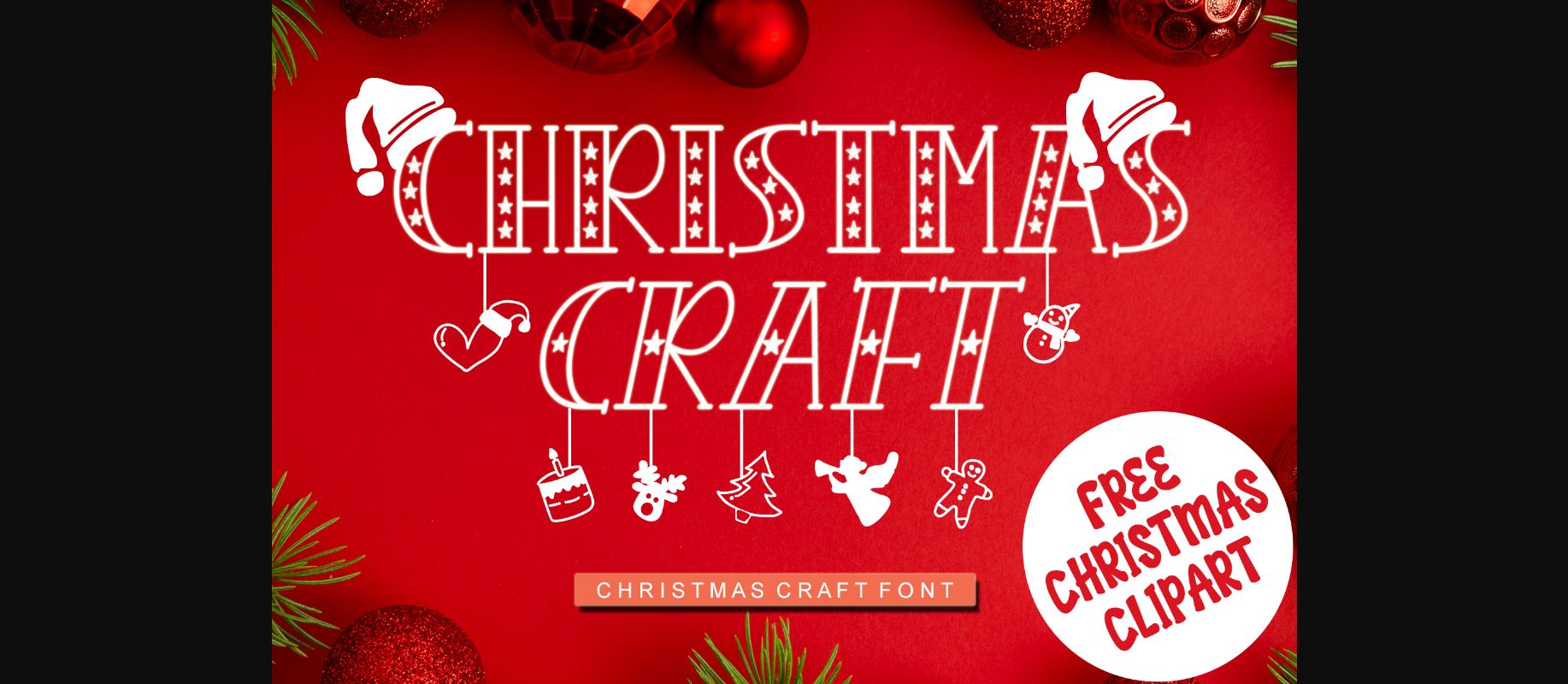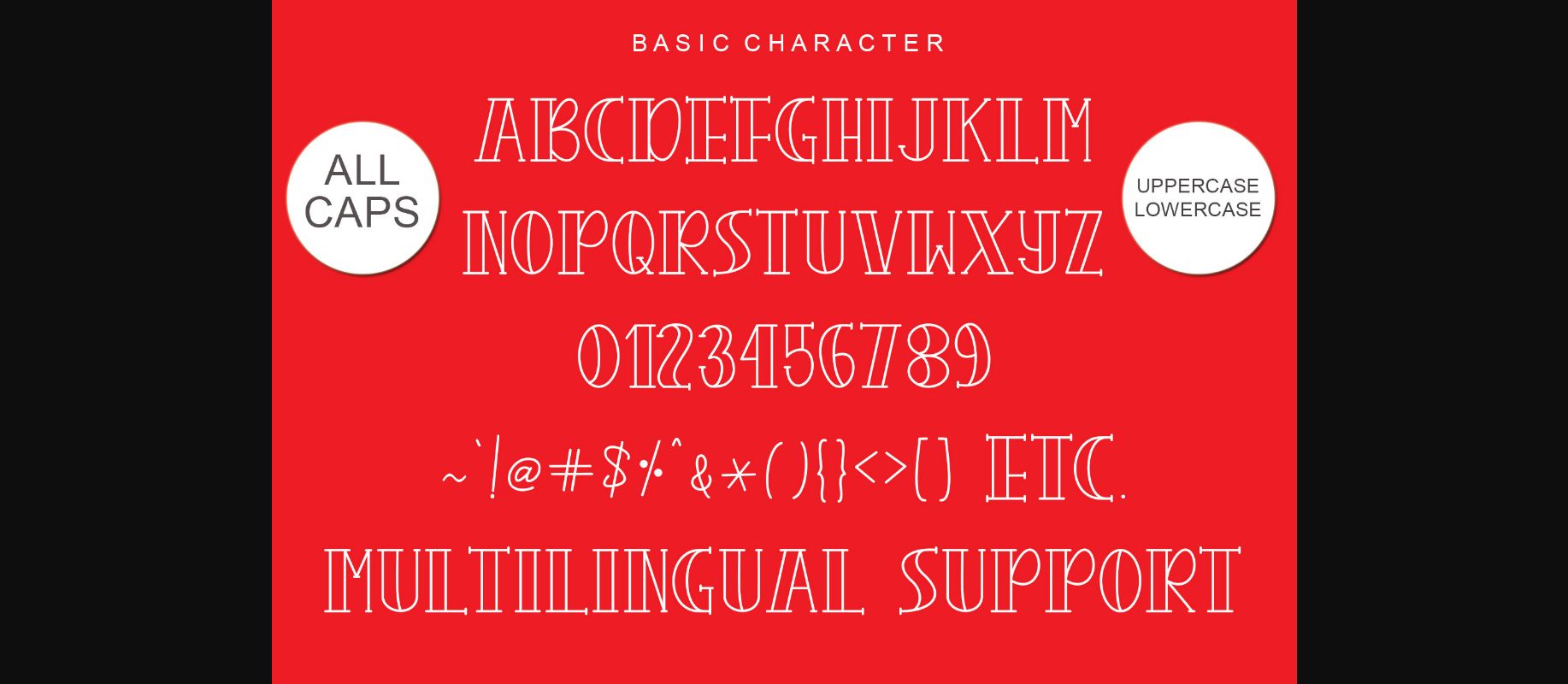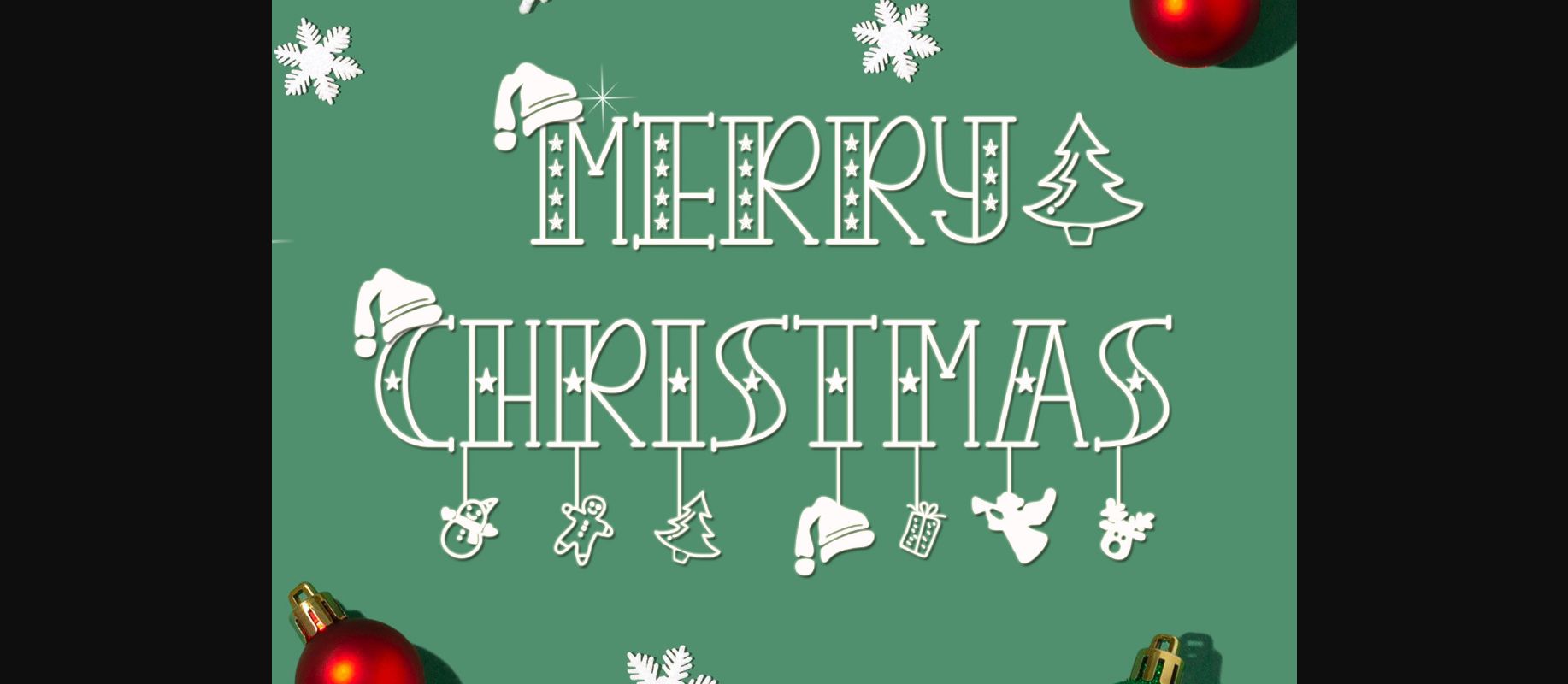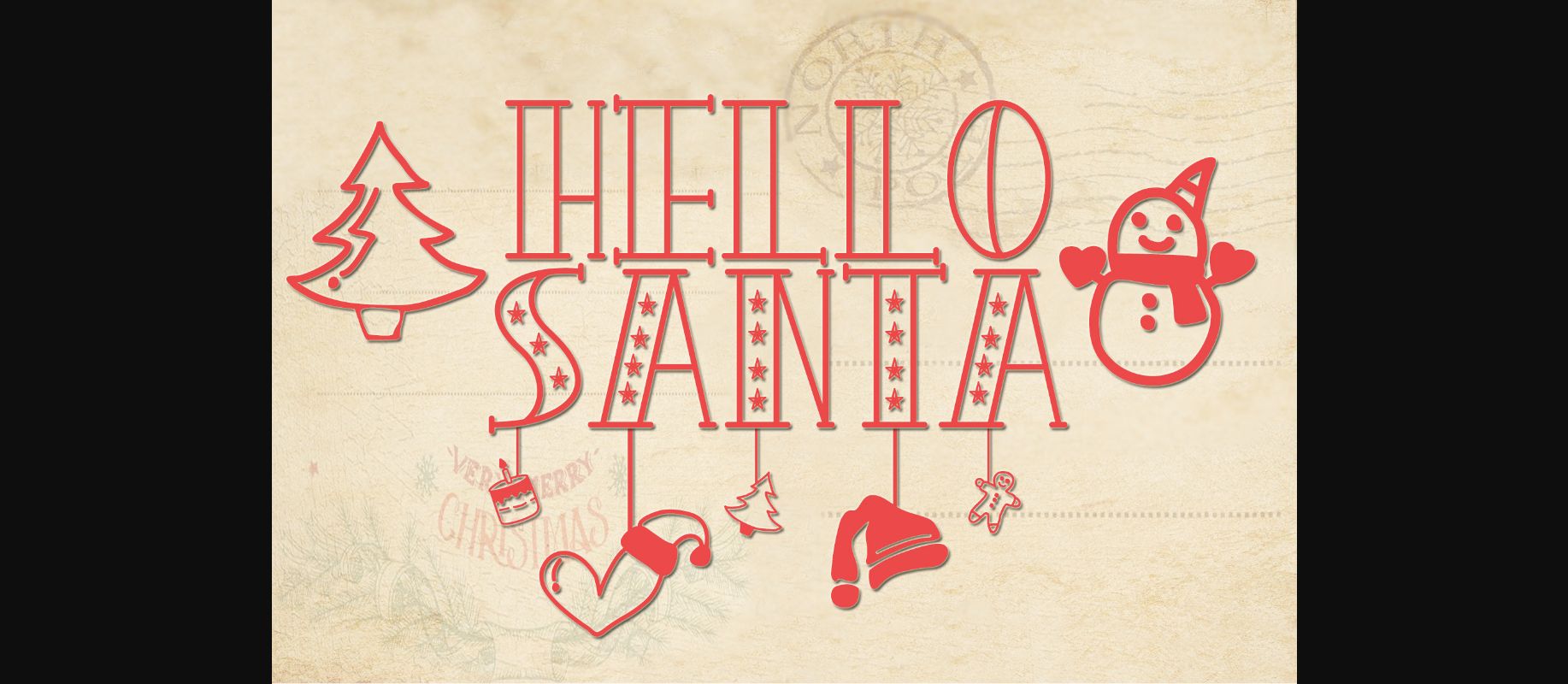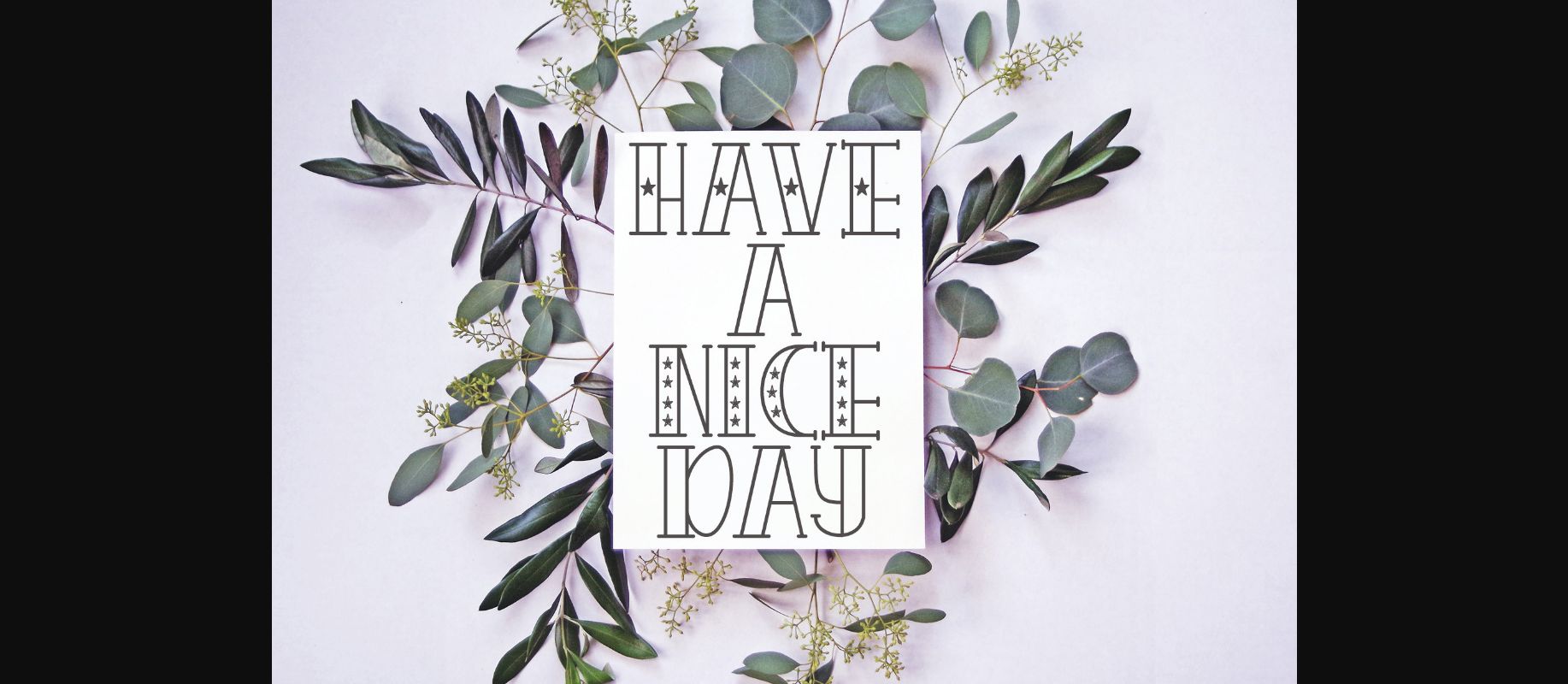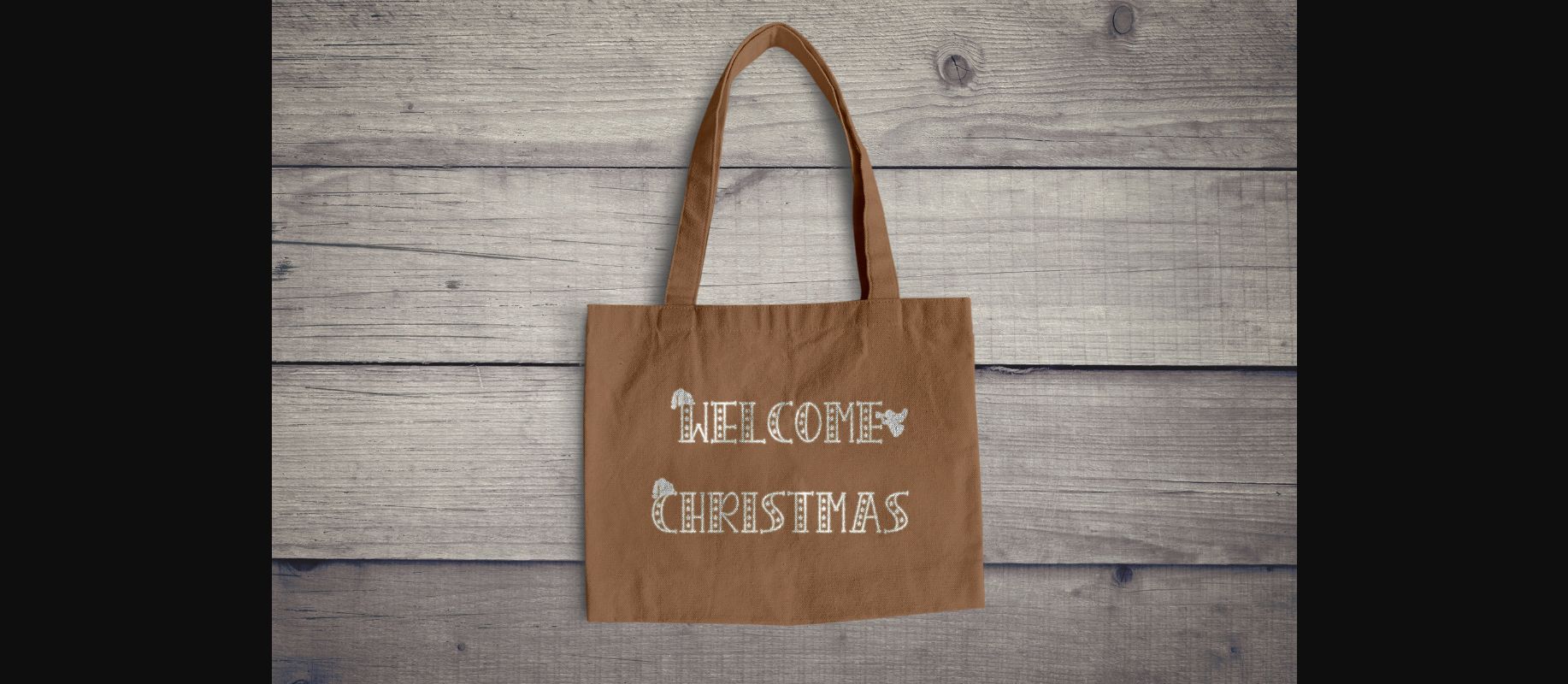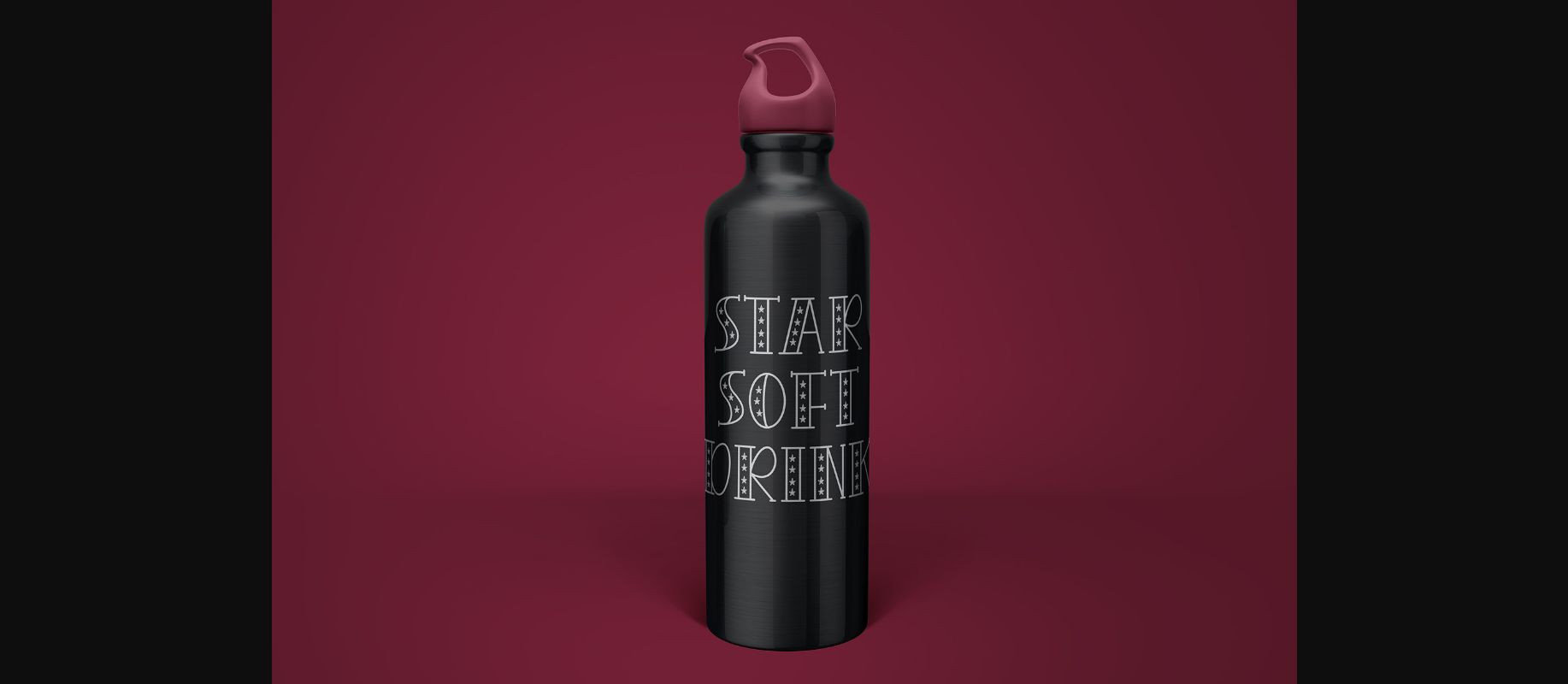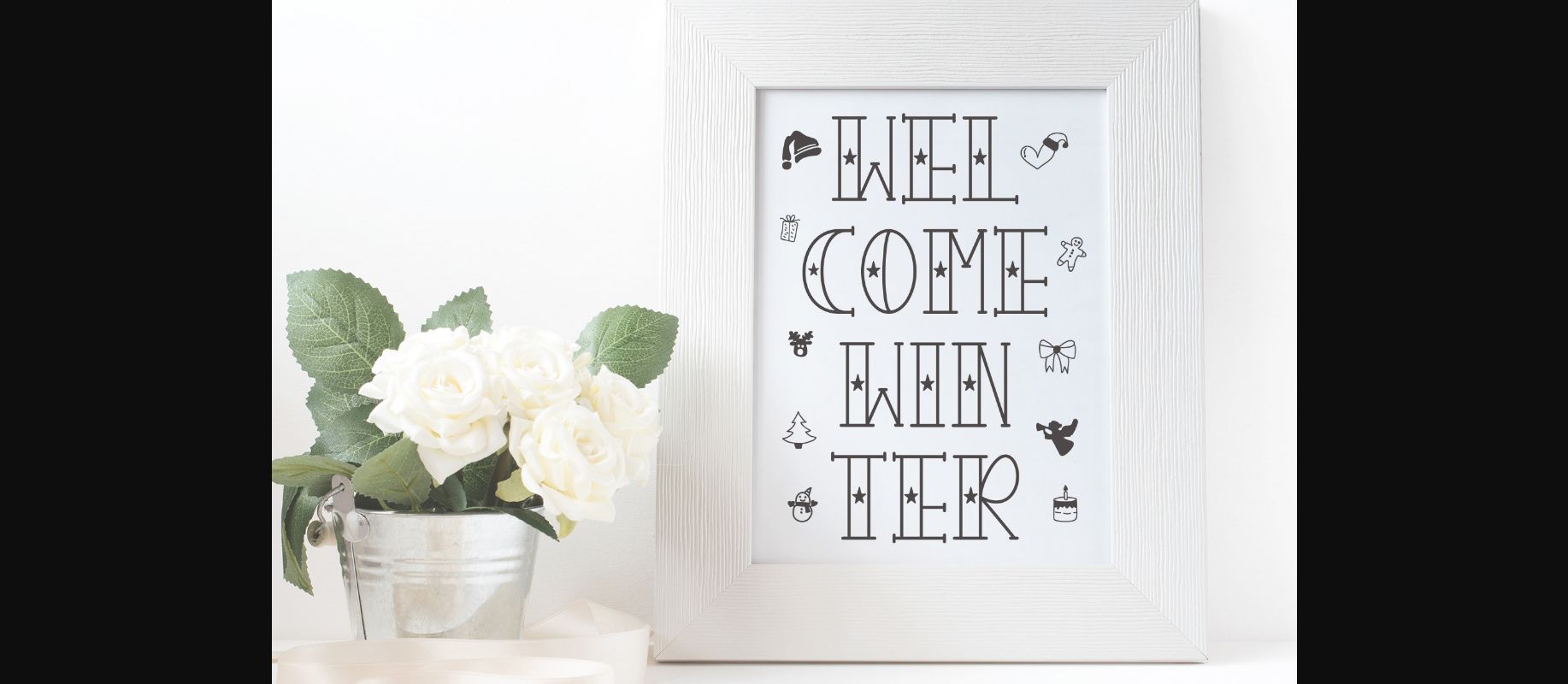
About Christmas Craft Font
Christmas Craft is a festive decorative font that will give your designs a unique and sweet look. It is perfect for any creative project that requires a friendly and playful appearance! This font is PUA encoded which means you can access all of the glyphs and swashes with ease!